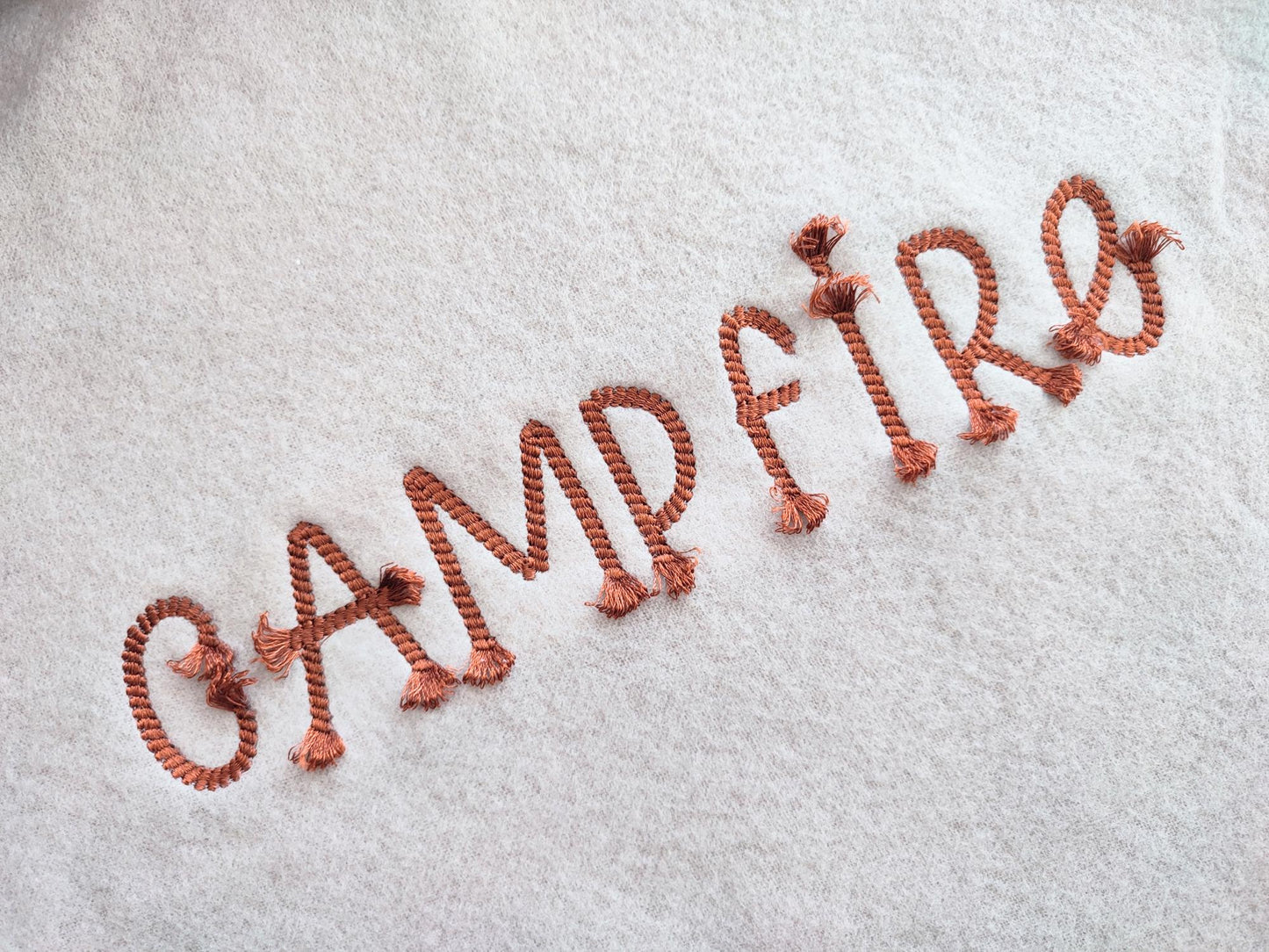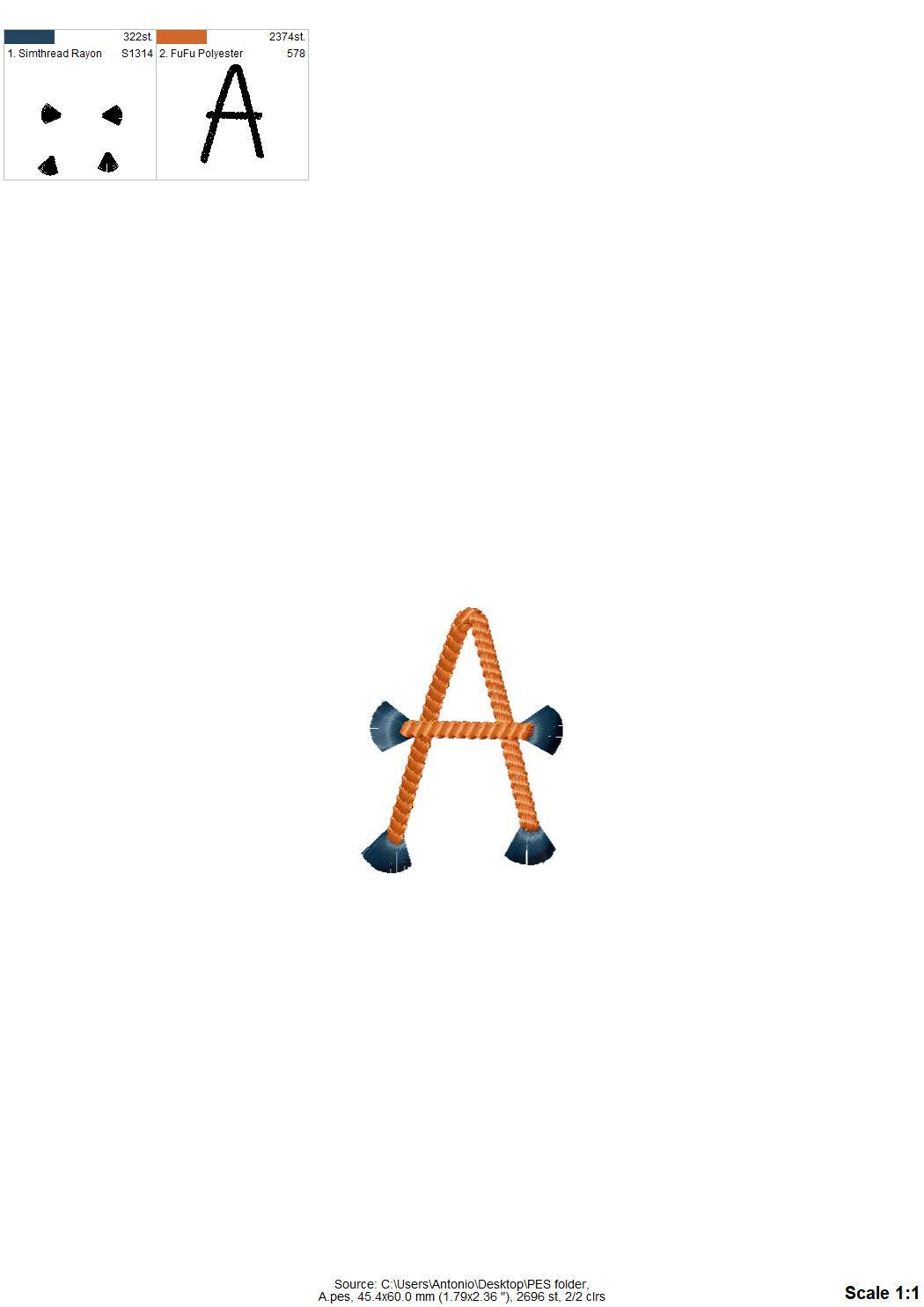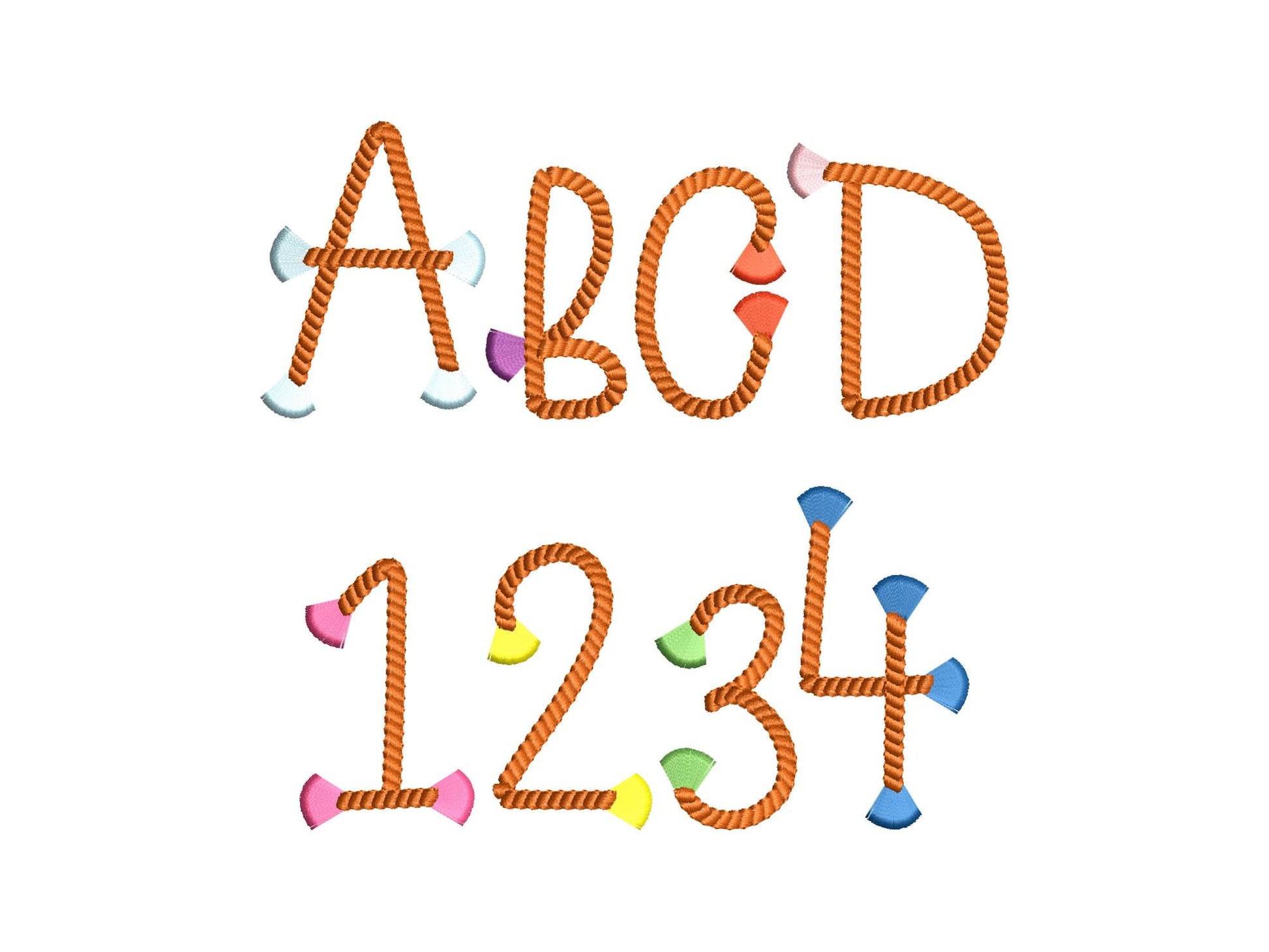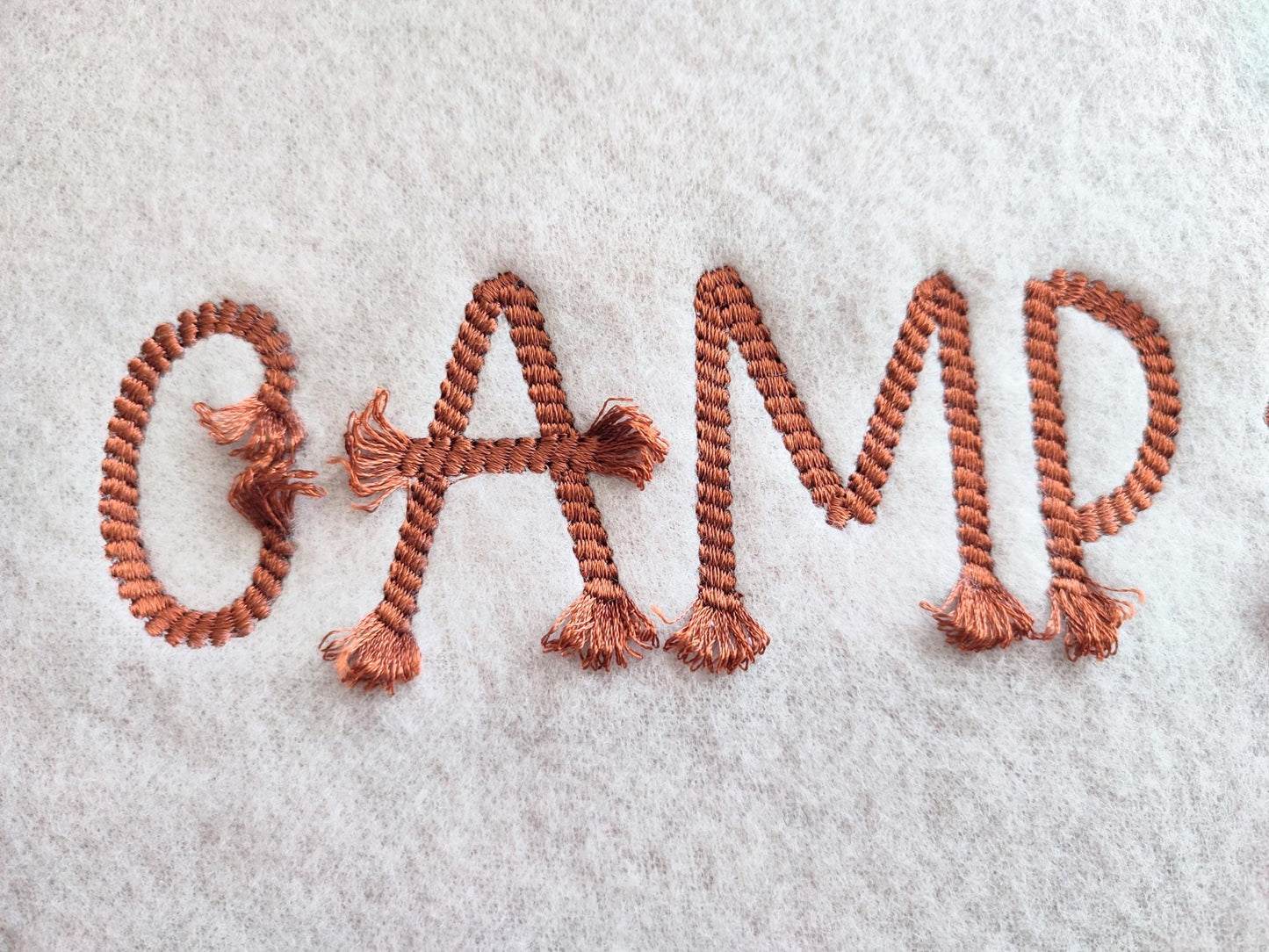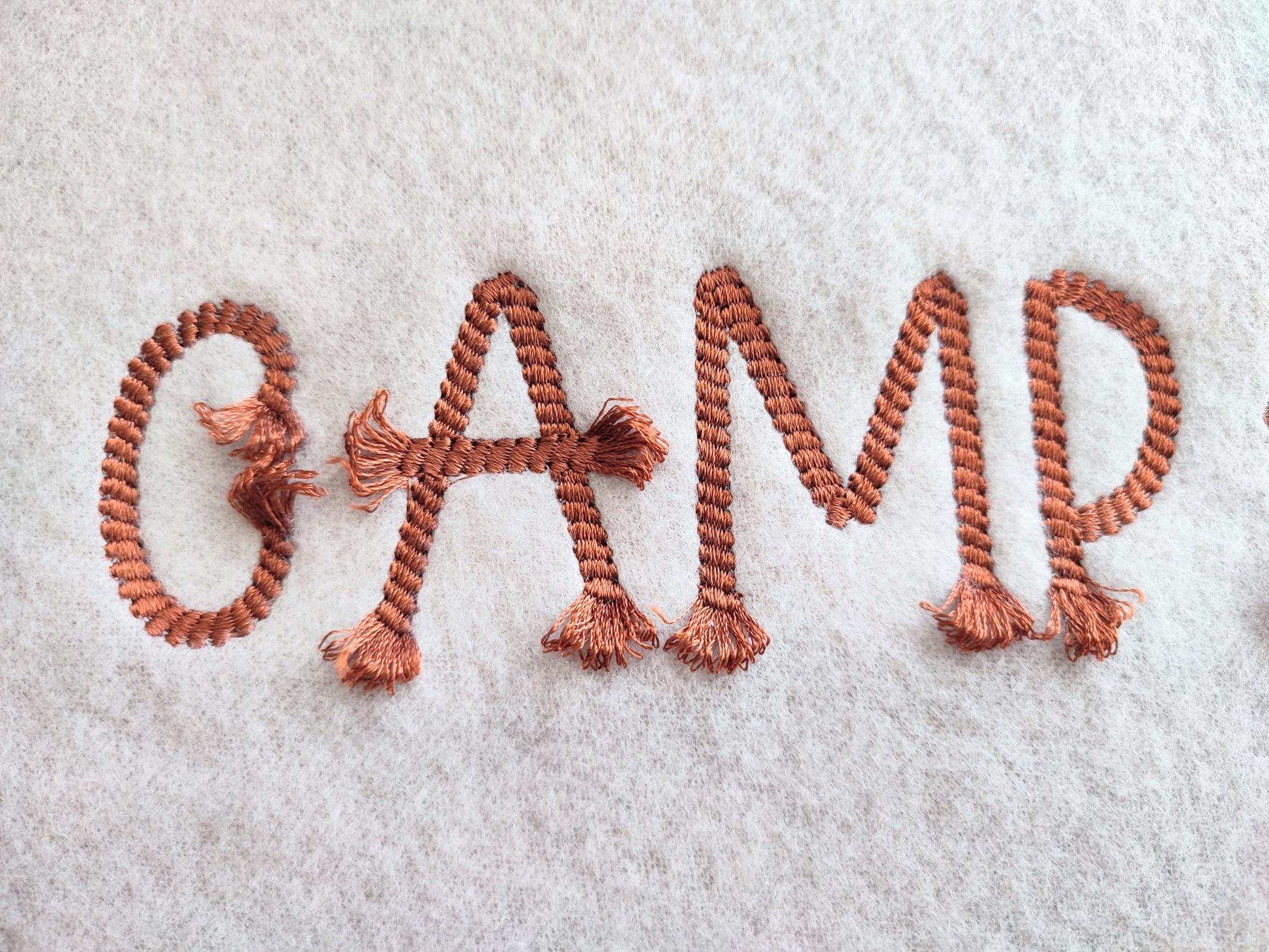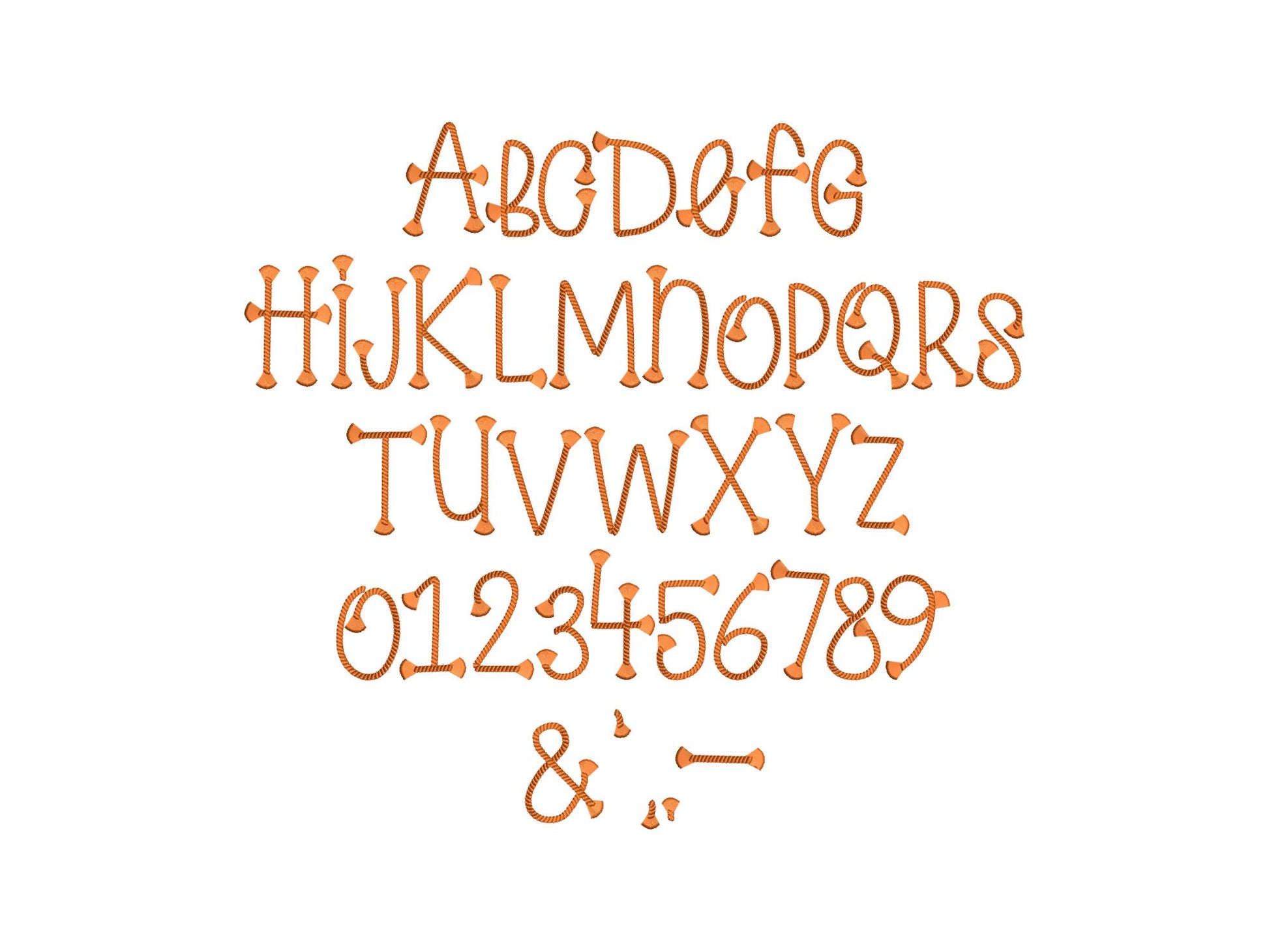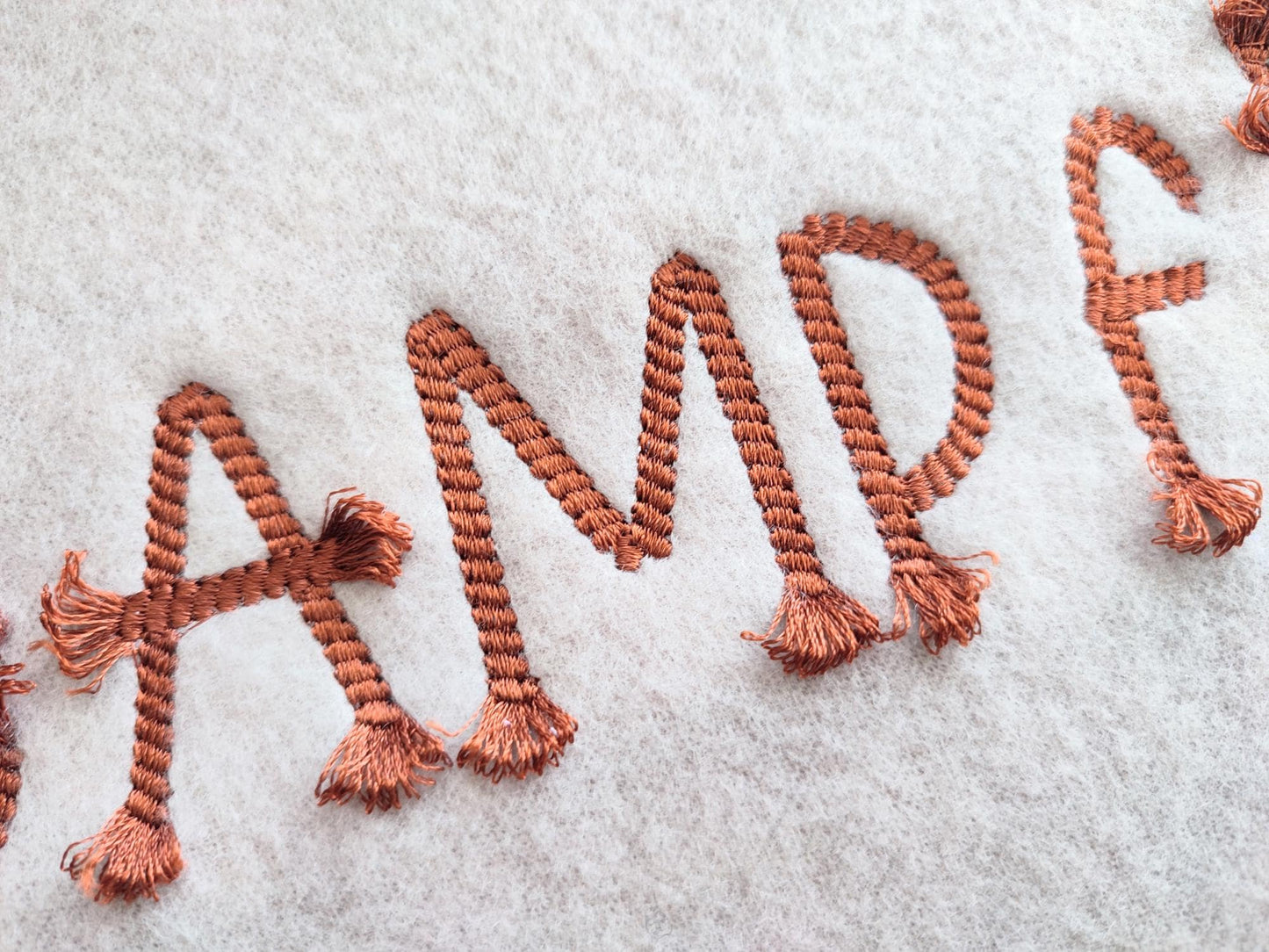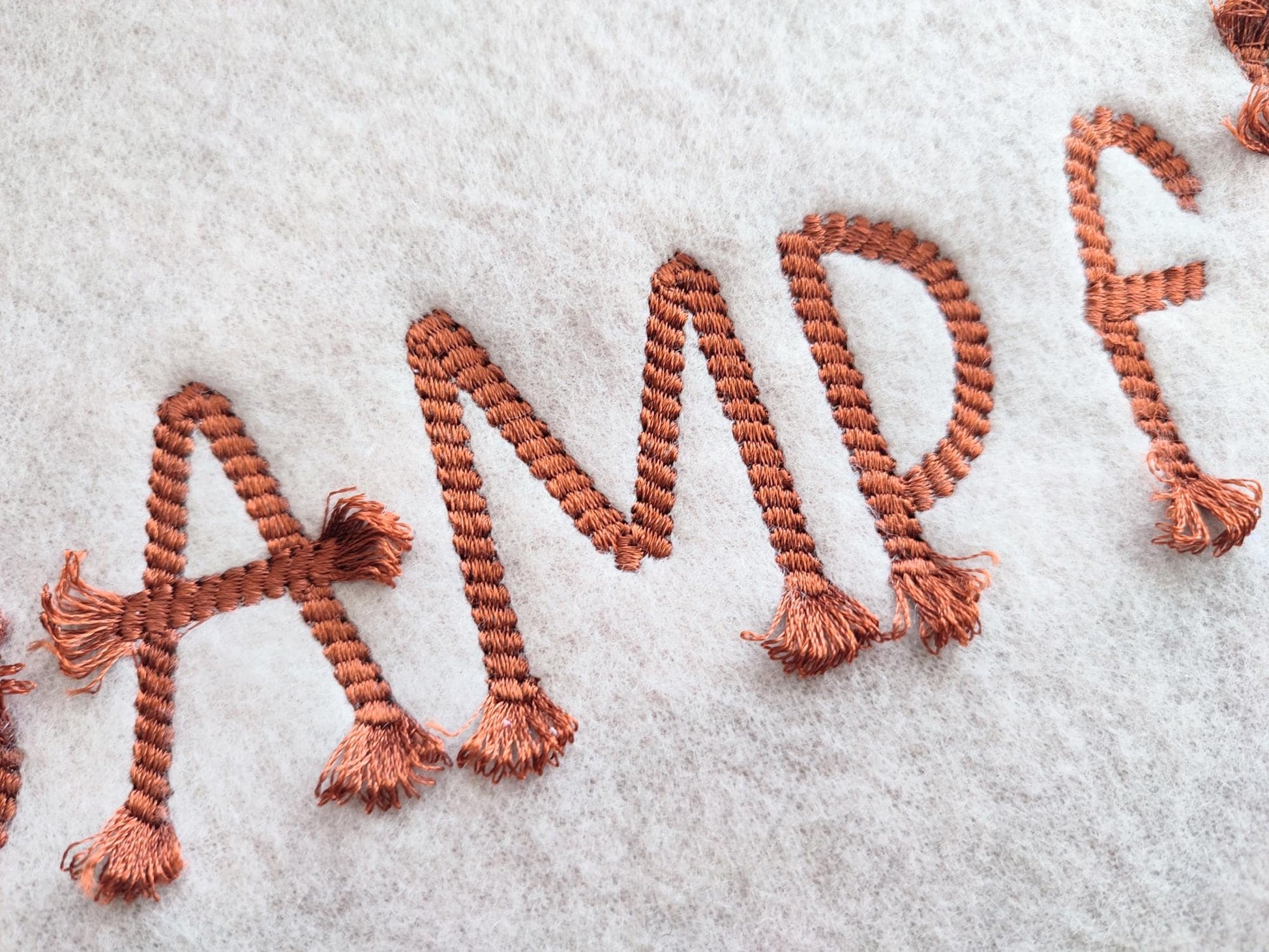
Or click to open the linkA rope stitch font with fringed tassel ends, for a western lasso look. Great for cowboy and cowgirl names, rodeo gear and Texas decor.
Uppercase letters A to Z, numbers 0 to 9 and punctuation. Five sizes: 1.5, 1.9, 2.4, 2.9 and 3.1 inches.